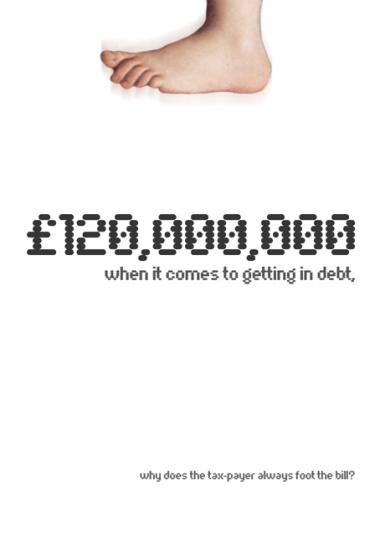
NCD Receipt
A quick fontstruct based on a slightly more stylish checkout receipt for a design job i'm currently working on. Any constructive comments appreciated.
You've done a great job!
I've just done a
NCD Receipt Serif
version as well.
Wow, that's just genius!